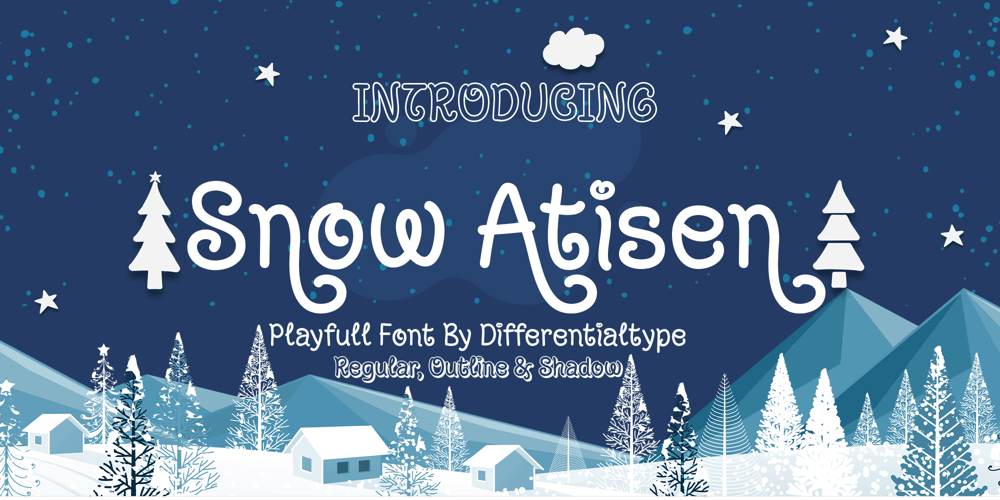
Snow Atisen Font Family was designed by Sidik Sidik and published by Differentialtype. Snow Atisen contains 3 styles and family package options. Snow Atisen is a festive and fun handwritten font. Perfect for adding a touch of holiday magic to Christmas cards, New Year’s decorations, winter designs and other fun projects. Comes with 3 styles that you can mix and match. This font has the potential to become your favorite font of choice, whatever the occasion, spread the joy of the season with this unique font.